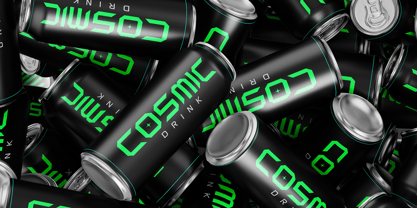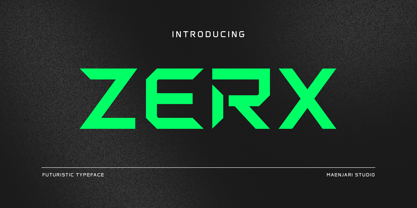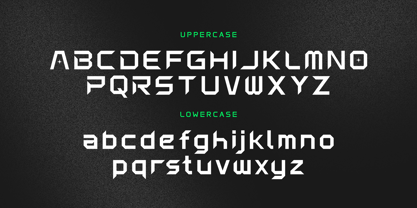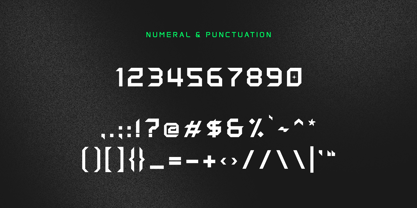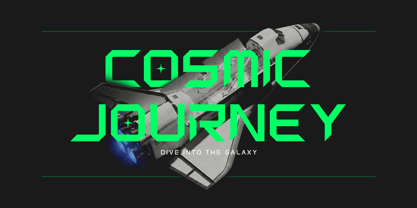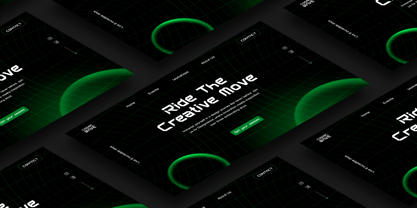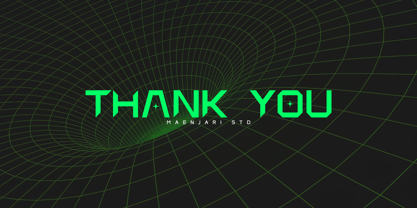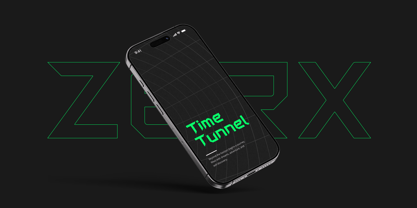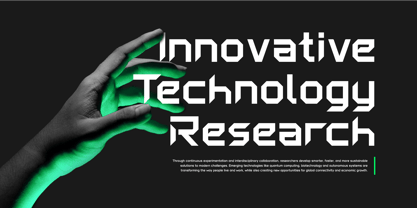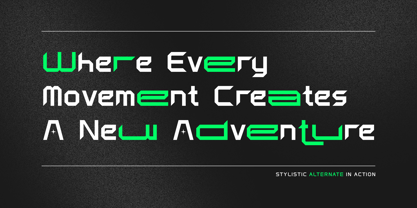
Zerx
par Maenjari Std
La famille de polices Zerx a été conçue par Maenjari et publiée par Maenjari Std. Zerx contient 1 styles. En savoir plus sur cette famille
Zerx is a cutting-edge display typeface inspired by sci-fi aesthetics, cyber technology, and contemporary digital interfaces. With sharp geometric cuts, angular forms, and robust architectural construction, this font delivers a bold and high-tech visual identity, making it perfect for innovative creative projects. Designed to excel in large titles and impactful layouts, Zerx is ideal for applications such as gaming graphics, esports branding, technology branding, sci-fi posters, movie titles, UI design, robotics themes, space-inspired projects, music covers, digital advertising, and futuristic packaging. Its distinctive structure creates an instant modern cyberpunk atmosphere while ensuring strong readability. What sets Zerx apart is its unique balance between aggressive futuristic styling and clean geometric consistency. The sharp corners, dynamic angles, and experimental letterforms contribute to a powerful visual rhythm that feels both innovative and energetic. Additionally, stylistic alternates provide extra flexibility, enabling designers to craft custom futuristic typography with a more unique and advanced appearance. Zerx pairs beautifully with minimalist sans serifs, condensed modern fonts, or sleek techno typefaces, allowing for layered contemporary compositions. The font includes uppercase and lowercase characters, numerals, punctuation, multilingual support, and alternate characters, catering to a wide range of creative needs. Inspired by futuristic interfaces, space exploration, cyberpunk culture, and modern technology, Zerx is designed for creators seeking typography that embodies boldness, intelligence, and a forward-thinking spirit. Whether utilized for digital branding, cinematic titles, or gaming visuals, Zerx infuses a strong futuristic personality into every design.